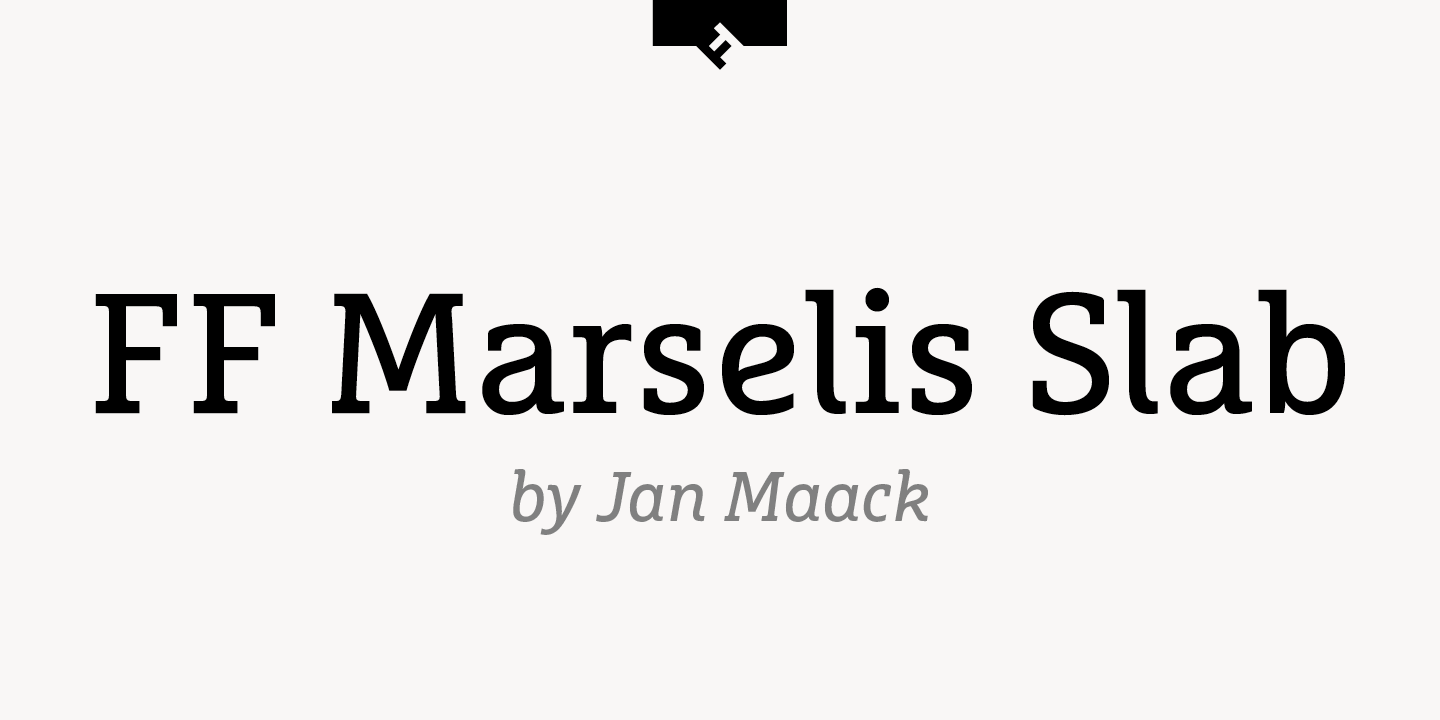
FF Marselis Slab Font is perfect for contemporary magazines, editorial design studios, modern publishing houses, digital media companies, design agencies, architectural presentations, corporate communications, and sophisticated branding projects that require robust slab serif typography with editorial excellence and professional authority.
What makes FF Marselis Slab Font exciting is its exceptional balance between editorial functionality and contemporary aesthetic appeal. This sophisticated typeface features strong slab serifs and optimized letterforms that ensure excellent readability in both print and digital applications, making it ideal for brands seeking to communicate journalistic integrity, design sophistication, and modern professionalism.
The FF Marselis Slab Font family includes thin, light, regular, medium, and bold weights, complemented by italic variations for comprehensive editorial flexibility. Each style maintains the font's characteristic editorial strength while providing designers with extensive typographic tools for creating dynamic layouts and professional publishing communications across diverse media platforms.
Editorial professionals consistently choose FF Marselis Slab Font Free Download for projects demanding contemporary sophistication and publishing excellence. This versatile typeface seamlessly combines modern design principles with traditional readability, ensuring complex content remains accessible while maintaining the visual impact expected in competitive media markets.
The font's editorial precision and contemporary character make it particularly suitable for publishing and media sectors. FF Marselis Slab Font delivers exceptional typographic impact while ensuring optimal reading experience across platforms, offering designers a reliable solution for creating memorable brand identities that communicate professionalism, credibility, and editorial excellence across modern publishing applications.